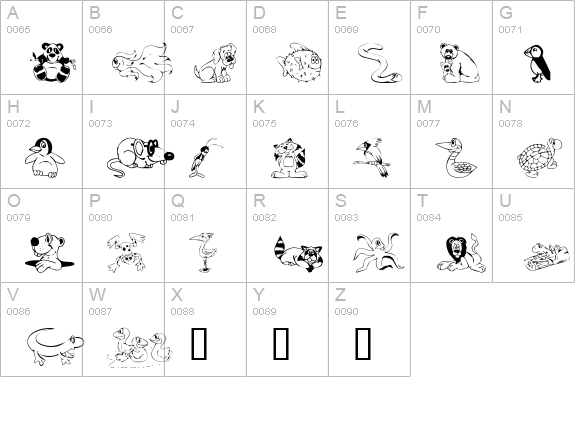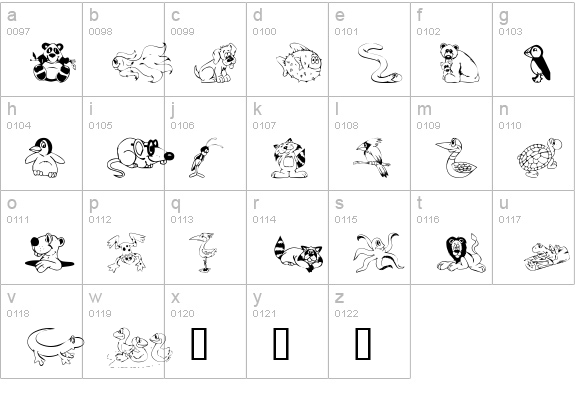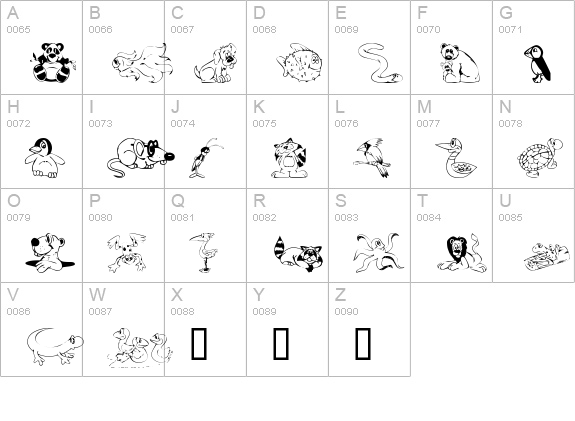
KR Lil Buddies Font Details
KR Lil Buddies font is a charming and playful typeface that exudes a sense of whimsy and innocence. Perfect for adding a touch of fun and friendliness to any design project, this font features cute and quirky letterforms that are sure to bring a smile to your audience's faces. What sets KR Lil Buddies font apart is that it is available for free download at FontsMarket.com. Yes, you heard that right - this delightful font is free for you to use in both personal and commercial projects. So go ahead and spread some joy with KR Lil Buddies font today!